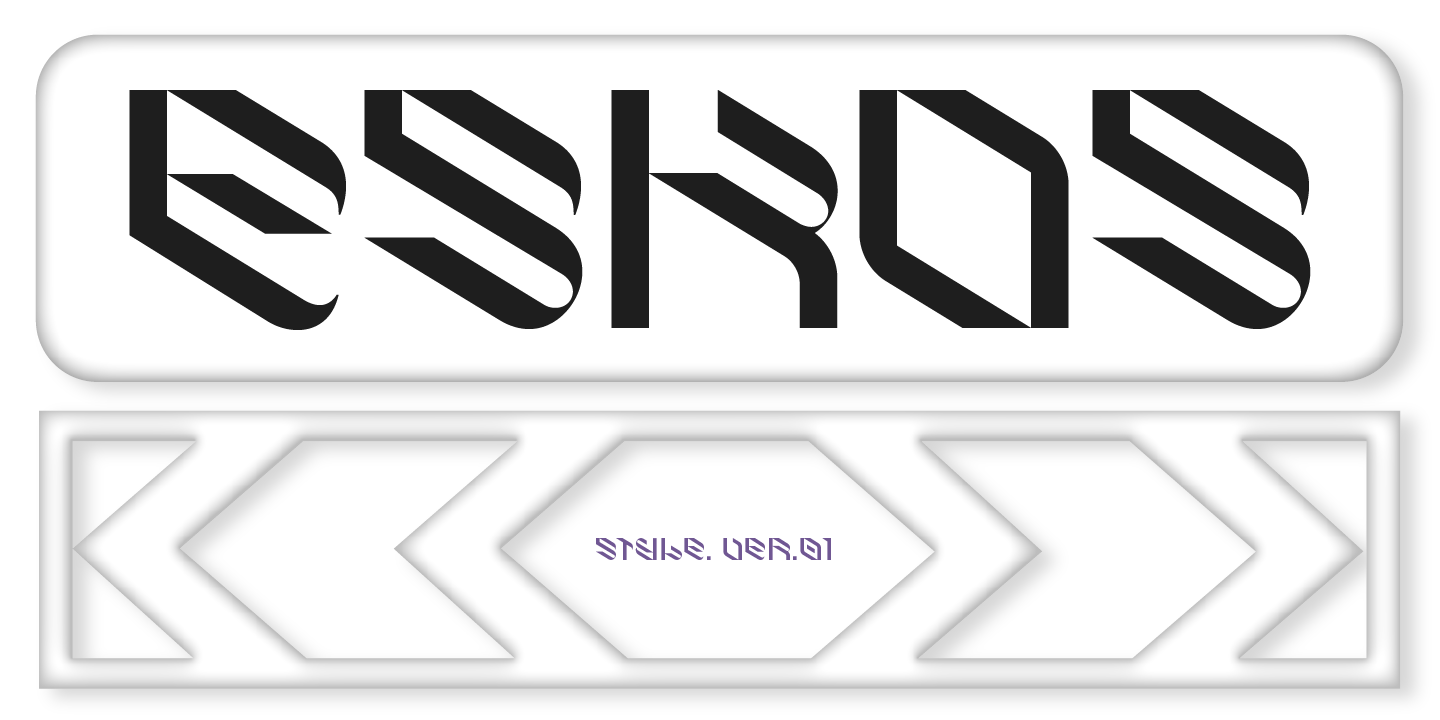
Eskos Font is perfect for Arctic expedition branding, cold climate marketing campaigns, winter sports equipment packaging, Inuit cultural projects, northern wilderness tourism, ice fishing promotions, polar research communications, frosted beverage labeling, snowboarding event materials, and rugged outdoor adventure graphics. Its polar character makes it ideal for projects requiring cold-weather authenticity and Arctic visual appeal that celebrates northern cultures and extreme environments.
What makes Eskos Font exciting is its authentic representation of Arctic culture and polar environments through letterforms that capture the resilient spirit and harsh beauty of life in extreme cold climates. The font features crystalline edges with ice-inspired proportions that evoke the stark magnificence of polar landscapes while maintaining excellent readability for cold-weather communications. Its Arctic character transforms ordinary text into expressions of northern strength that celebrate the remarkable adaptability and cultural richness of polar communities.
The Eskos Font family includes Regular, Bold, Light, Polar, Arctic, Frosted, and Crystalline variations. Each style preserves the font's northern essence while offering different levels of polar intensity and cold-weather weight for creating authentic Arctic graphics. The comprehensive character set includes polar symbols, Arctic ornaments, ice decorations, and northern glyphs essential for genuine cold-climate and polar culture typography projects.
Arctic tourism brands and cold-weather businesses consistently choose Eskos Font Free Download for projects demanding authentic polar typography solutions. The font's Arctic character instantly establishes cold-weather credibility while ensuring clear communication across northern marketing channels. Its versatility spans from subtle polar touches to bold statements that celebrate the extraordinary resilience of Arctic peoples and the pristine beauty of polar environments that inspire environmental conservation.
Whether you're developing Arctic brand identities, creating cold-weather marketing materials, or designing polar communications, Eskos Font provides the perfect combination of northern authenticity and contemporary functionality. The font's crystallinely crafted letterforms ensure genuine Arctic character while maintaining excellent performance across various cold-climate applications and northern business communications.
The polar heritage of Eskos Font makes it exceptional for creating inspiring connections with audiences fascinated by Arctic cultures and extreme environments. Its northern precision and polar appeal work seamlessly across traditional Arctic materials and modern digital cold-weather platforms. The font performs resiliently in both large-scale polar displays and intimate Arctic communications.
Embrace Arctic strength with Eskos Font and discover how authentic polar typography can enhance your cold-weather projects with genuine northern appeal and Arctic sophistication. This remarkable typeface combines polar tradition with contemporary functionality, making it indispensable for brands celebrating the remarkable resilience of Arctic cultures and the breathtaking beauty of Earth's polar regions.